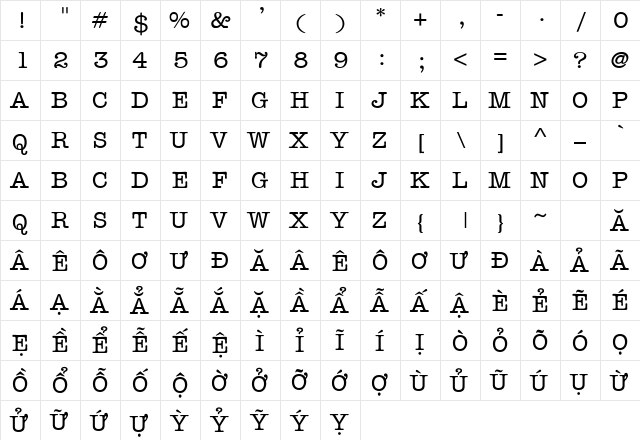
.VnMemorandumH Regular
Design Context for .VnMemorandumH Typeface
.VnMemorandumH is a composed and adaptable typeface that performs quietly and consistently across a wide range of design contexts.